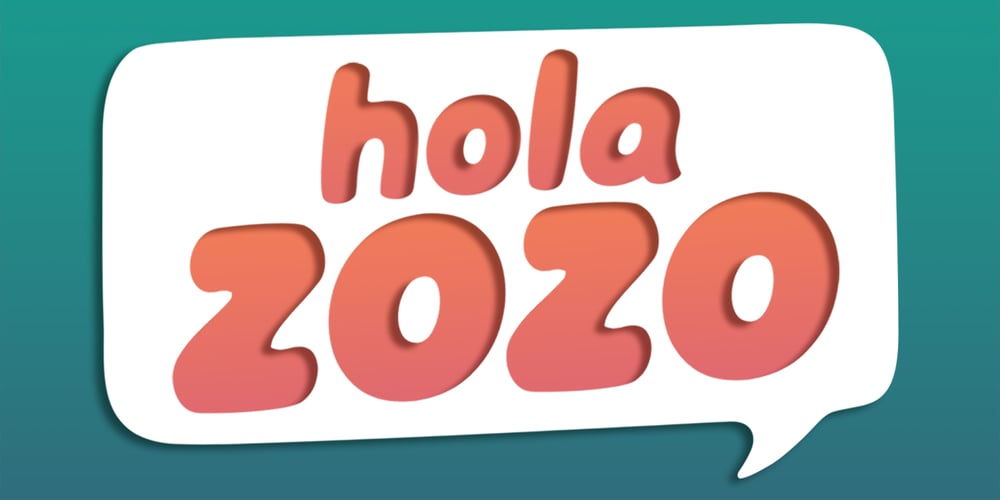
Hola Zozo
Hola Zozo font
Hola Zozo Font Family was designed by Lia Wijayanti and published by Orenari. Hola Zozo contains 1 styles and family package options. Hola Zozo is a slant chubby font. This font is fit for every design purposes. Why its called “Zozo”? Because Zozo is like 2020 :DHave fun with this chubby font.I really hope your projects will be cool with this font, and please don’t hesitate to drop me a message if you have any questions or you wanna share some jokes! :)Thank You,Ari